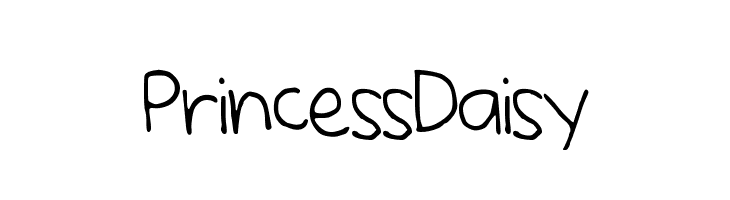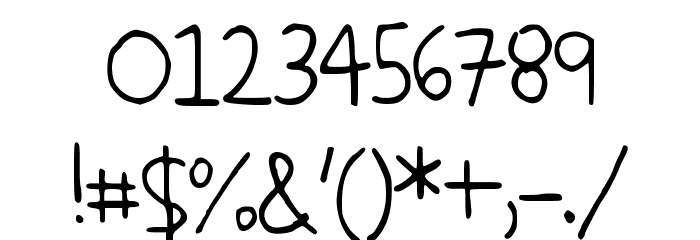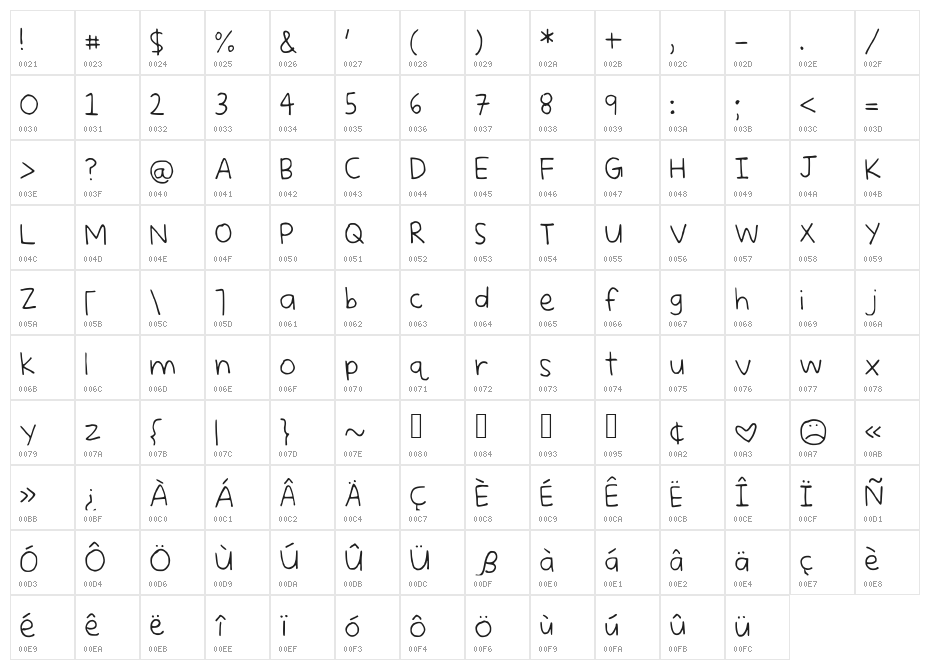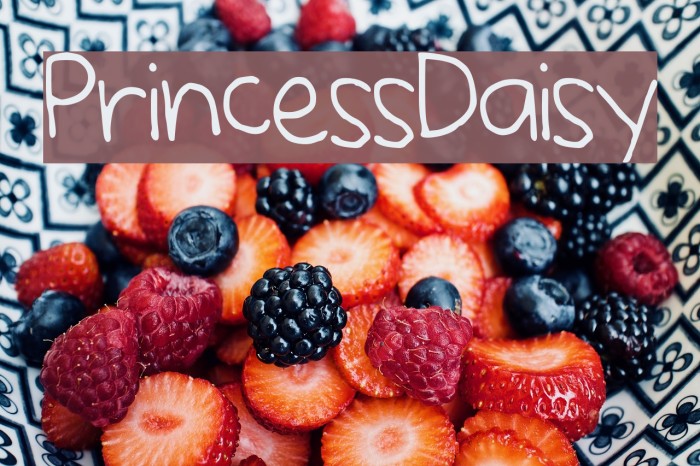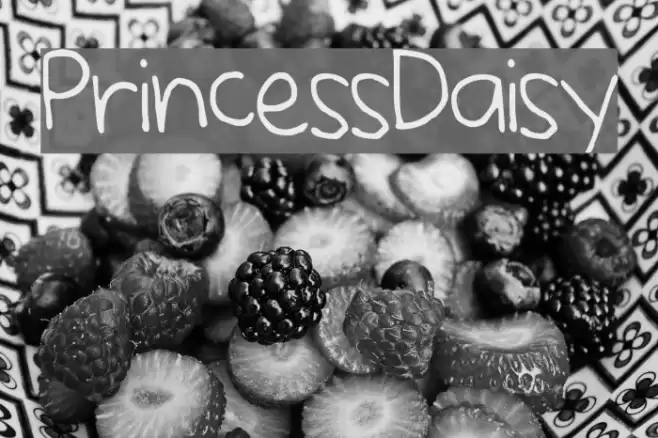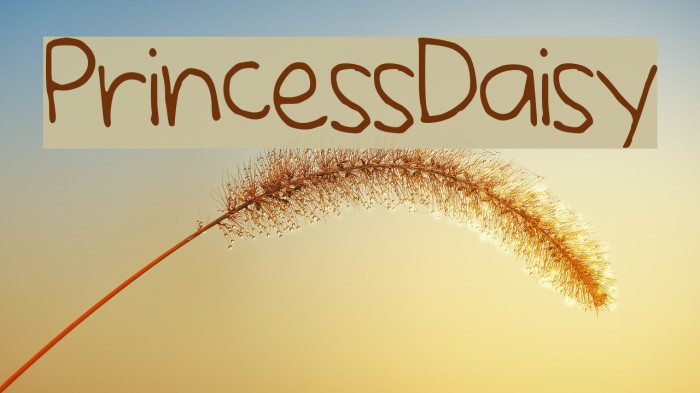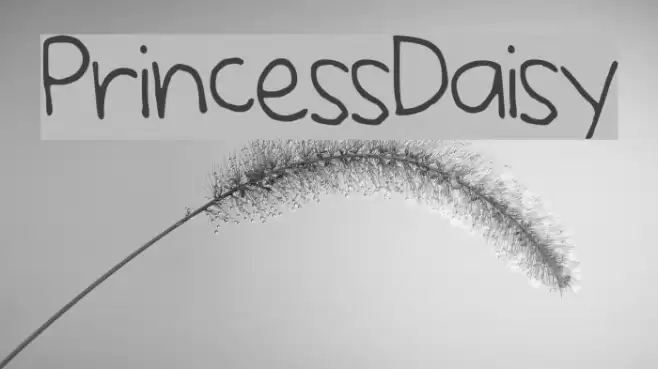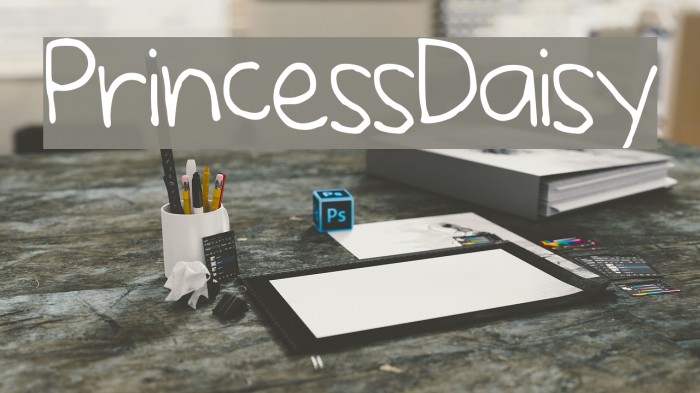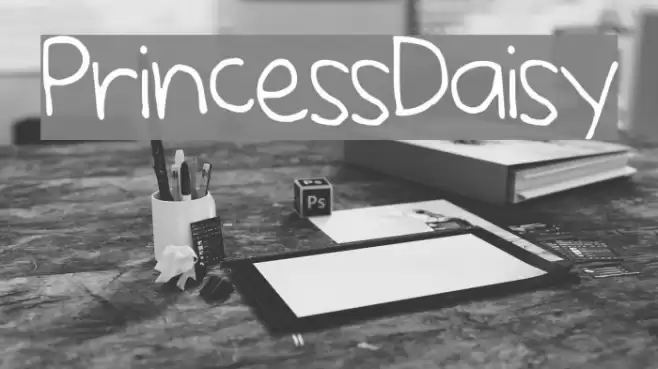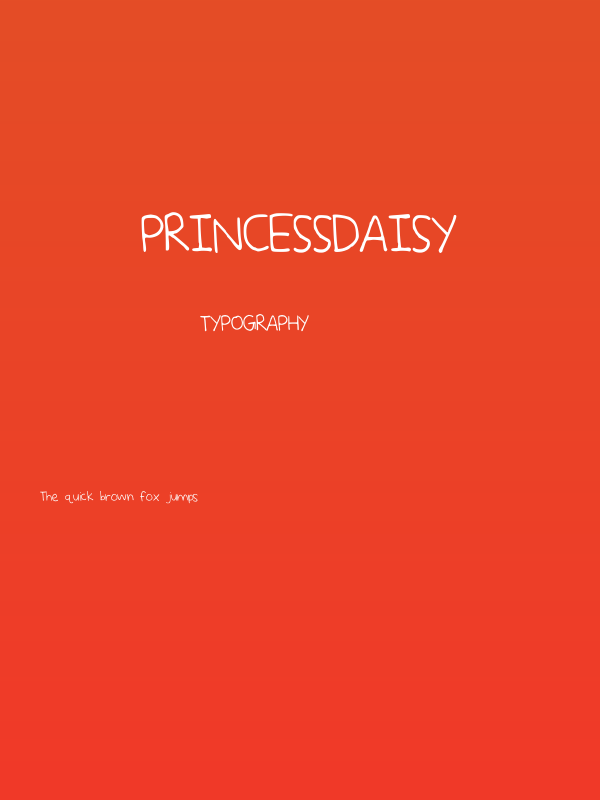
PrincessDaisy Font
PrincessDaisy Description
This playful and whimsical font features a handwritten style with a casual and friendly appearance. The characters are slightly irregular, giving it a personal touch that mimics natural handwriting. The strokes are consistent in weight, providing a uniform look across all characters. The font includes both uppercase and lowercase letters, numerals, and a variety of special characters, making it versatile for different design needs. Its informal style makes it suitable for projects that require a personal or creative touch, such as invitations, greeting cards, or children's book covers.
| Proposed Projects | Ideal for invitations, greeting cards, children's books, and creative projects. |